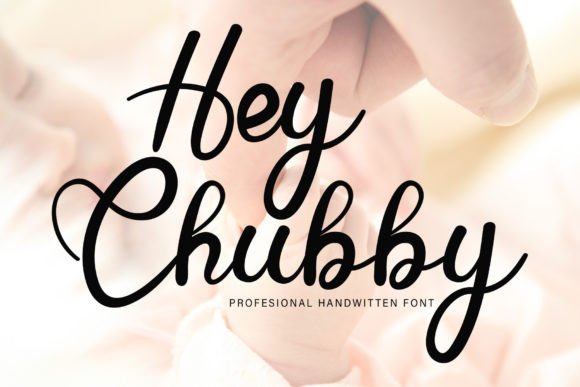
Prepare yourself to be swept off your feet by Hey Chubby, the enchanting script font that exudes charm and playfulness. Dive into a world of creativity where your designs take center stage, adorned with this captivating font. Let Hey Chubby be your artistic partner, transforming your ideas into masterpieces that resonate with warmth and authenticity.
Picture this: your social media posts adorned with Hey Chubby's delightful curves, captivating your audience with its irresistible charm. Your Instagram feed becomes a visual symphony, each post a testament to your impeccable taste and creative flair. Your followers will be mesmerized by the effortless elegance of your designs, eager to know the secret behind your captivating content.
But Hey Chubby's magic extends far beyond the digital realm. Unleash its potential in your DIY projects, adding a personal touch to handmade cards, invitations, and home décor. Its whimsical nature breathes life into every creation, turning ordinary objects into cherished keepsakes. Imagine the joy on your loved ones' faces as they receive a heartfelt card penned in Hey Chubby's distinctive script - a testament to the love and care you've poured into it.
With Hey Chubby as your creative companion, you'll discover a hidden wellspring of inspiration. Its versatility knows no bounds, adapting seamlessly to a myriad of design styles and themes. Whether you're crafting logos, branding materials, or simply adding a touch of whimsy to your personal projects, Hey Chubby will elevate your creations to new heights of artistry.
So, embrace the magic of Hey Chubby, the font that will transform your creative journey. Let its friendly charm infuse your designs with warmth and personality. Experience the joy of creating art that speaks to the heart, art that captivates and inspires. With Hey Chubby by your side, the possibilities are limitless - turn your creative dreams into tangible realities, one stroke at a time.